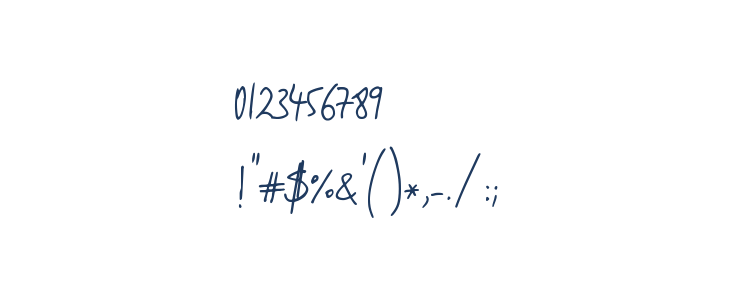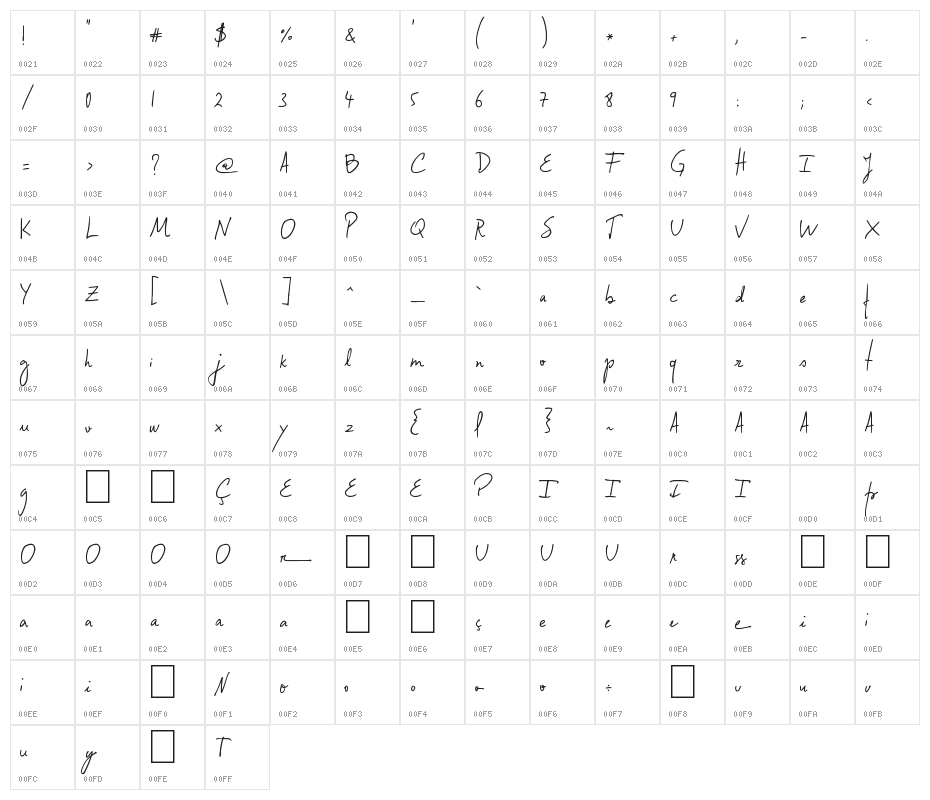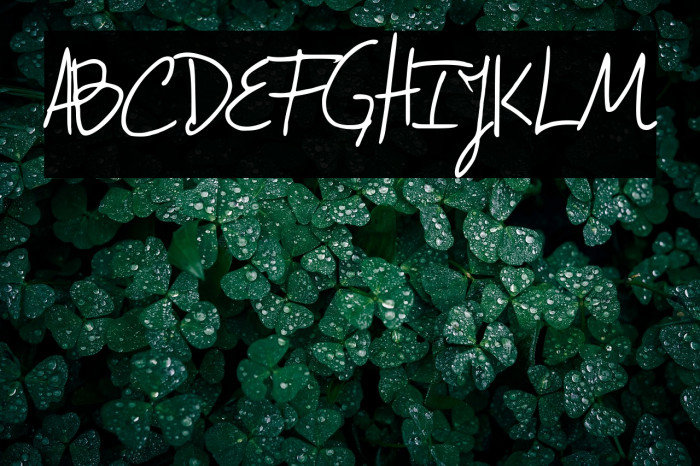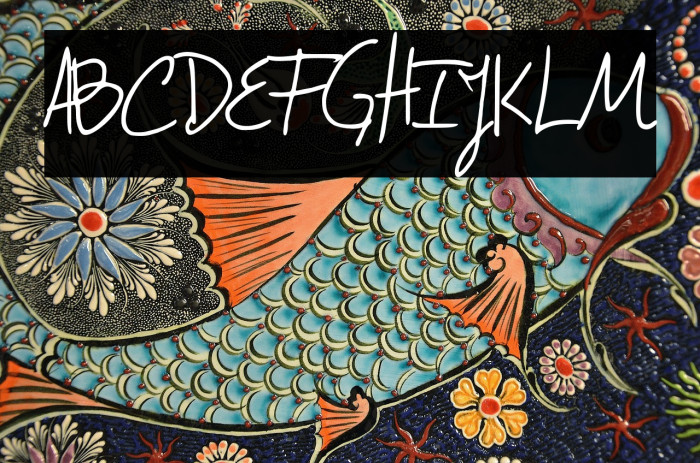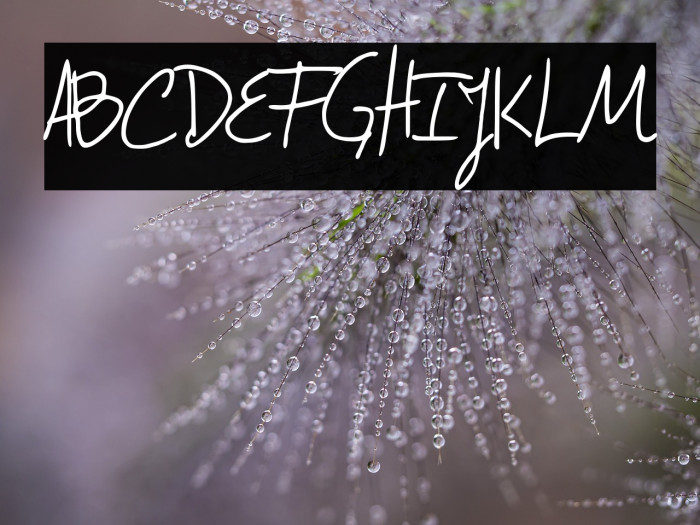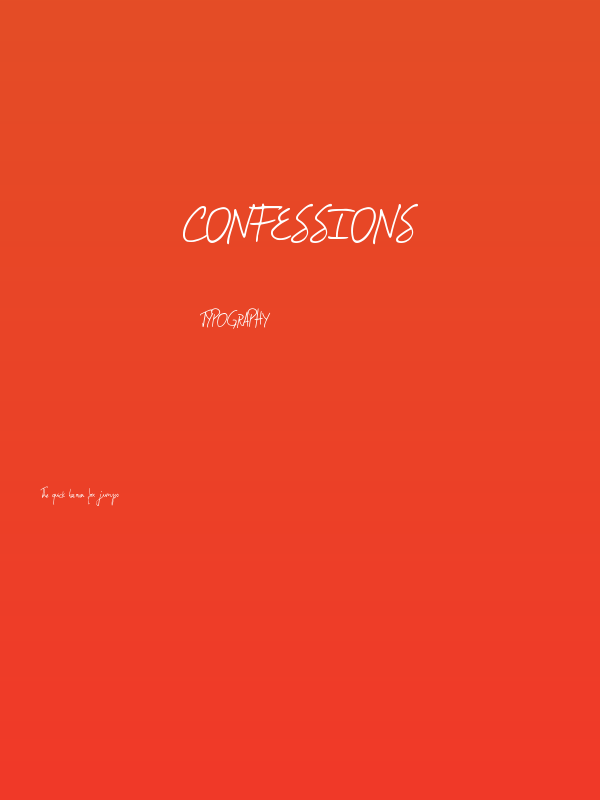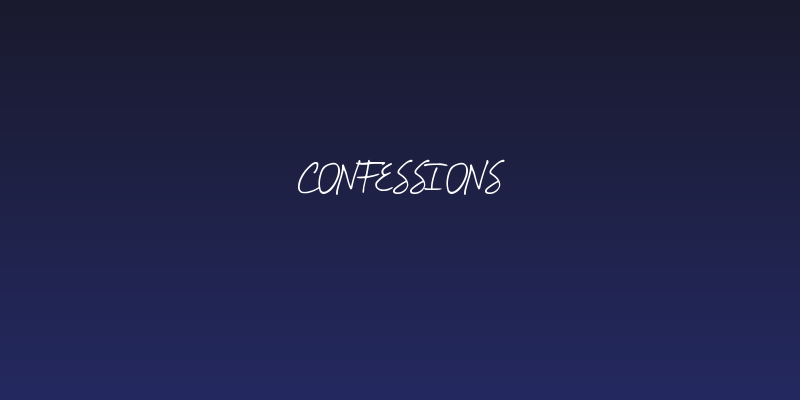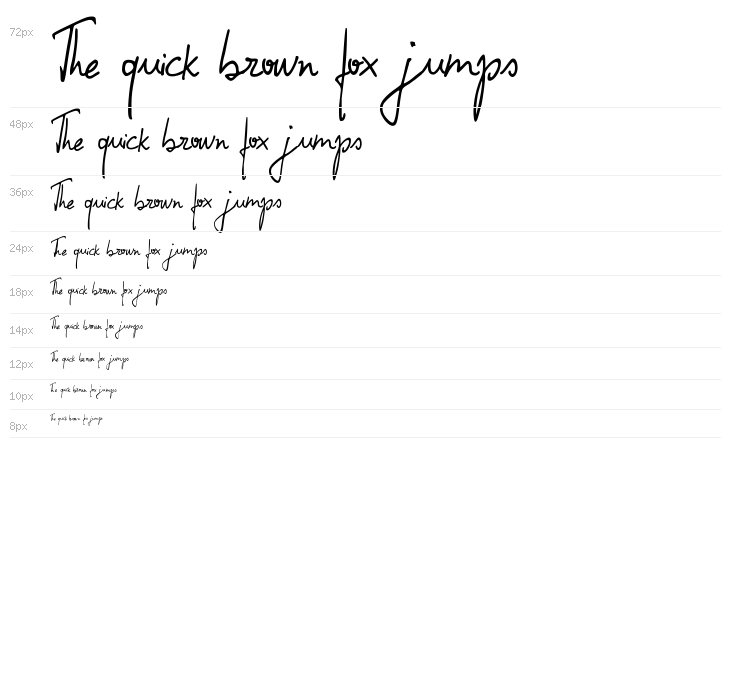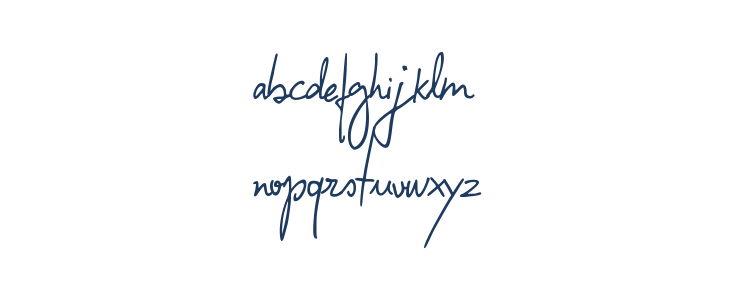
Confessions Font
Confessions Description
This font exudes a casual, handwritten style with a playful and informal appearance. The letters are slightly slanted, giving it a dynamic and lively feel. The strokes are uneven, mimicking the natural flow of handwriting, which adds a personal touch. The uppercase letters are bold and prominent, while the lowercase letters maintain a consistent flow, enhancing readability. Numbers and special characters are crafted with the same playful style, ensuring uniformity across all elements. This font is ideal for projects that require a personal or informal tone, such as invitations, greeting cards, or creative branding.